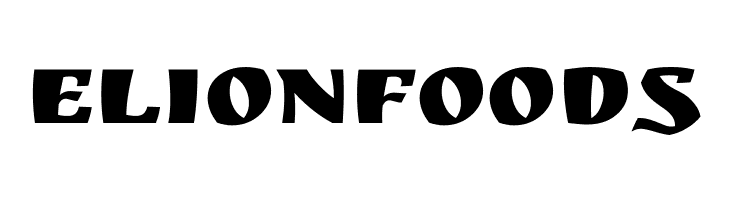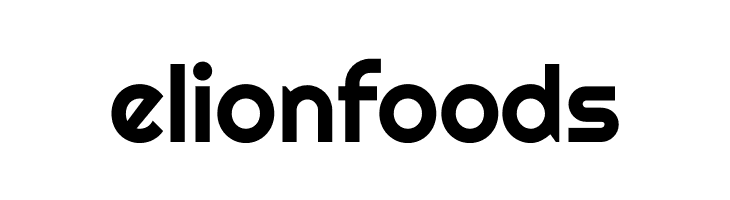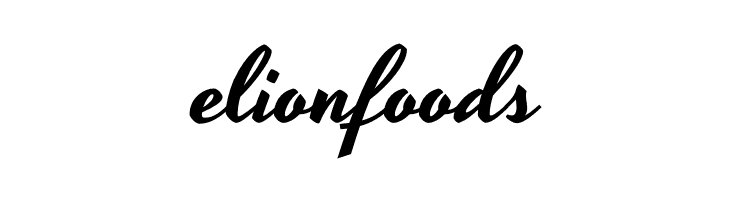
) A bold, angular font with a dynamic and geometric style.
) A bold, angular font with a dynamic and artistic style.
A modern, geometric font with rounded edges and uniform stroke width.
A classic serif typeface with moderate contrast and elegant design.
A bold, classic serif font with strong, well-defined characters.
An elegant and fluid cursive font with dynamic stroke variations.
An elegant, flowing script font with smooth, cursive letterforms.
A playful, whimsical serif font with bold, rounded serifs and hand-drawn appeal.
A vintage, cursive script font with a bold, flowing style.
) A modern, clean sans-serif font with balanced spacing and consistent stroke width.